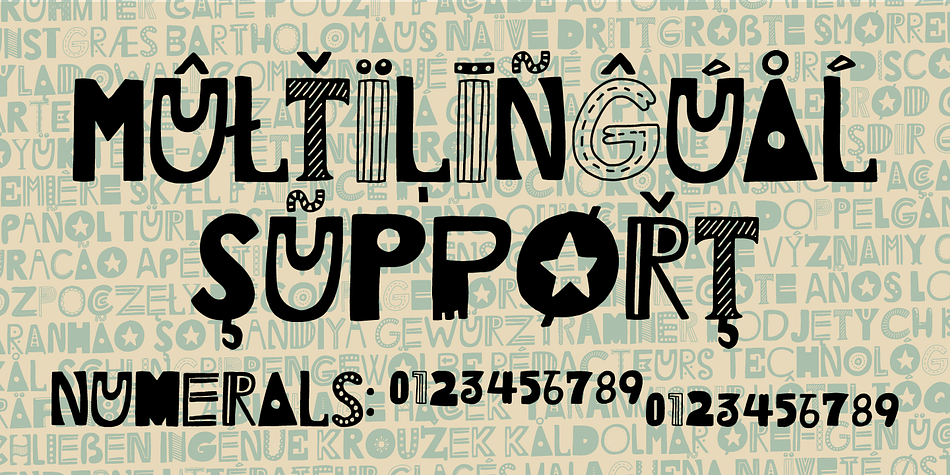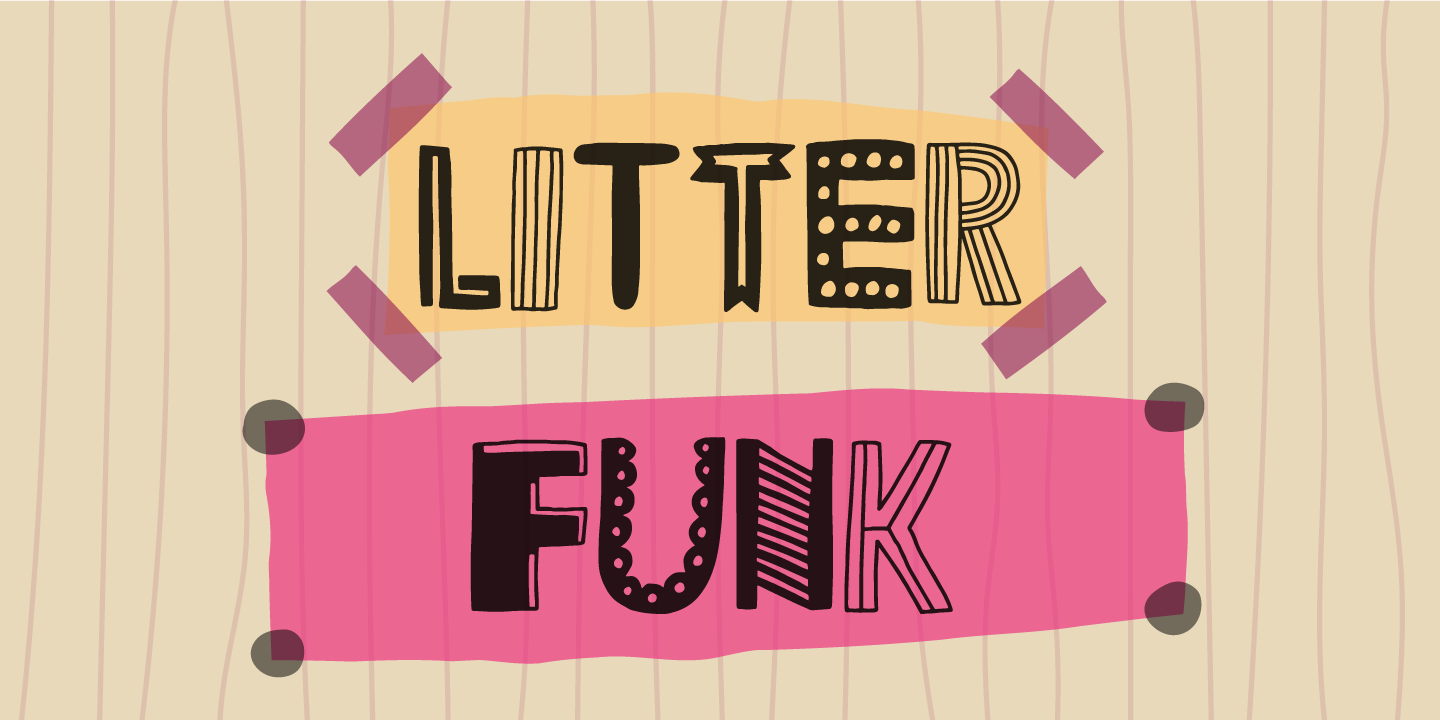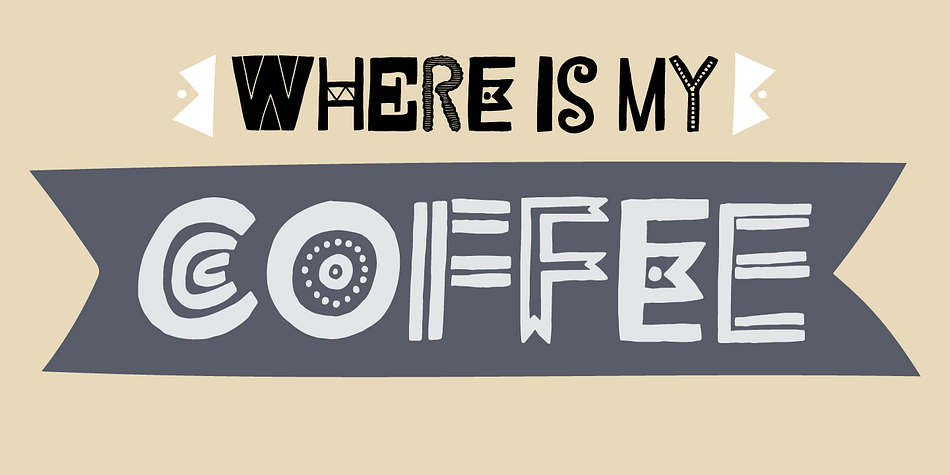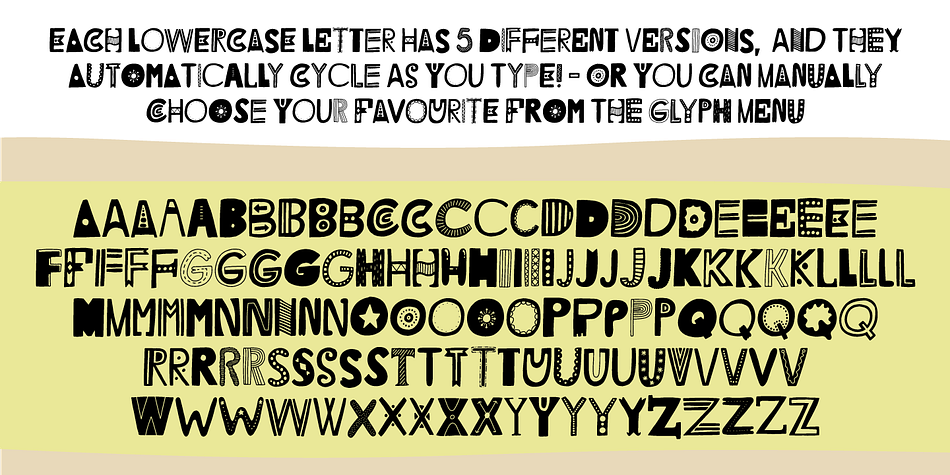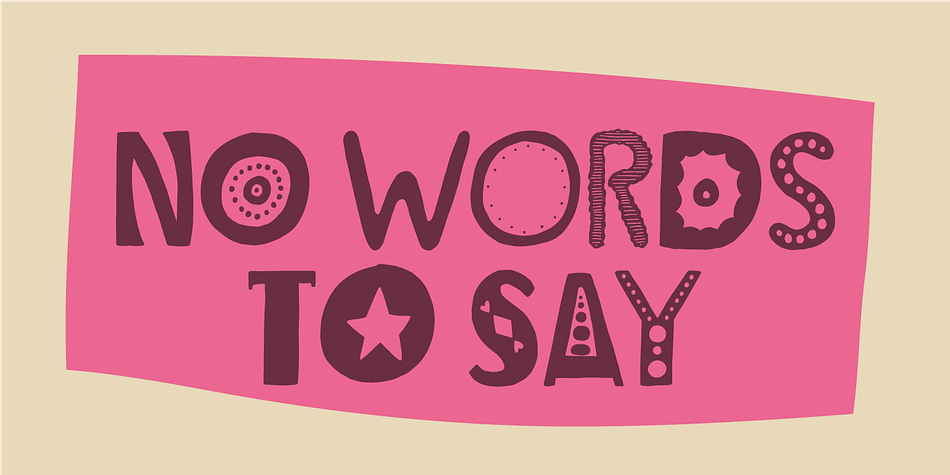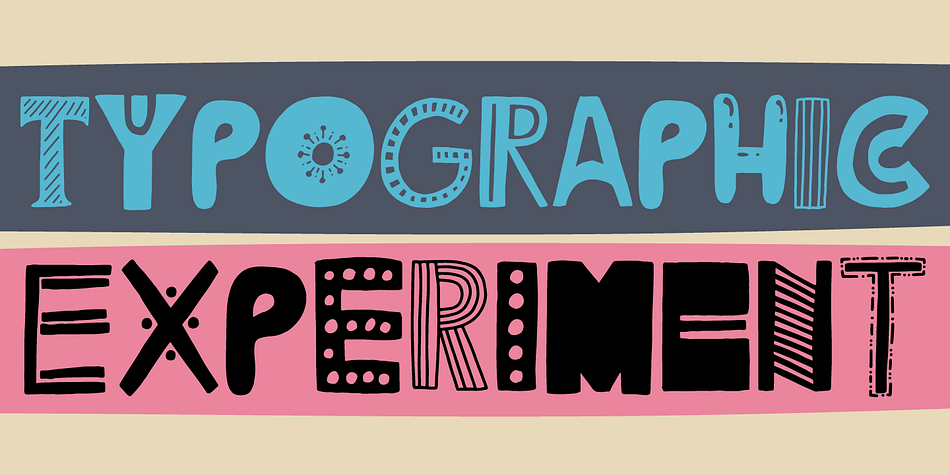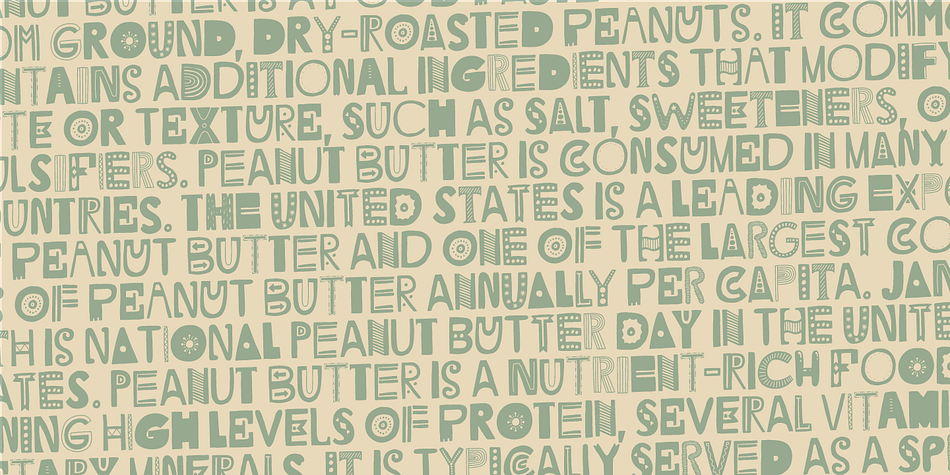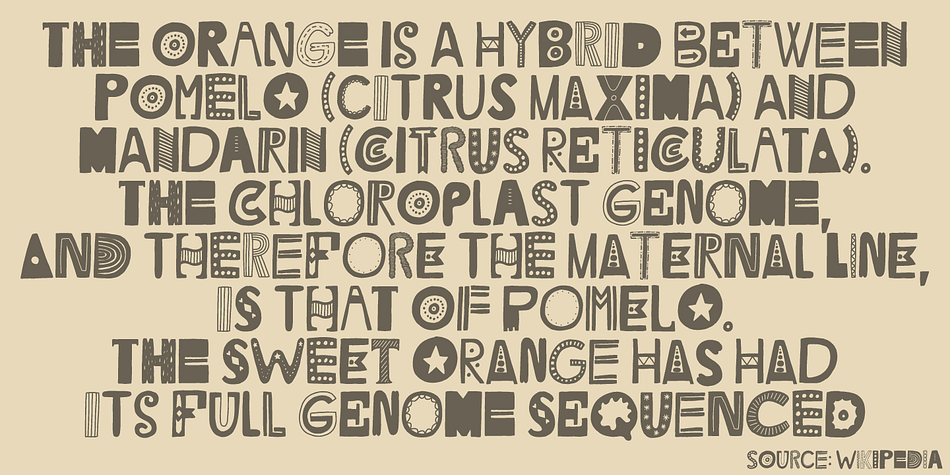
Designed by Jakob Fischer, Litter Funk is a hand display, hand drawn and novelty font family published by Pizzadude.dk.
You may already have guessed it…Litter Funk is experimental typography. Some letters are fat blocks, others have stars, stripes or dots, some are funny and funky while others are plain weird - but all in all, they leave a really nice confusing effect when used. Due to the contextual alternates, each letter comes in 5 different versions, and automatically cycle as you type.